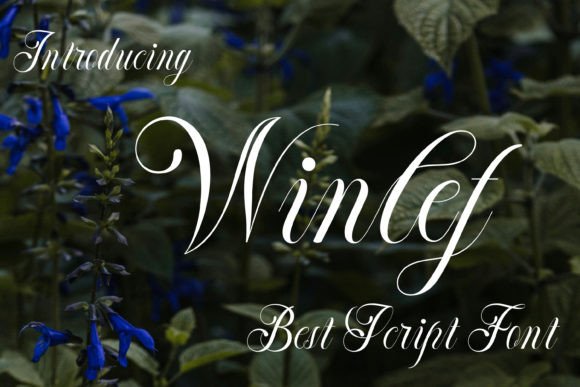
Winlef: A Script Font That Elevates Digital Branding
Recently, I was working on a boutique online store’s homepage redesign. The client wanted something that felt personal, elegant, and slightly artistic—something that would make their brand stand out in a crowded market. After testing several fonts, I came across Winlef. It immediately caught my eye because of its handwritten flow and italics style. It wasn’t just another script font; it had a unique personality that felt both modern and timeless.
The Visual Personality of Winlef
Winlef is a script amp typeface designed with a fluid, handwritten feel. Its italicized strokes give it a natural, organic rhythm that feels like a real person wrote it. Unlike some overly decorative script fonts, Winlef maintains clarity and legibility, making it ideal for digital use. The font has a soft, elegant curve to its characters, which gives it a refined yet approachable vibe. It’s perfect for projects that need a touch of creativity without sacrificing readability.
I used Winlef as the primary font for the hero section of the boutique site. The first-time render was stunning—it felt like the brand had a story to tell. The fluidity of the font complemented the brand’s aesthetic, which focused on handmade and artisanal products. It added warmth and character to the layout while keeping the design clean and professional.
Where to Use Winlef in Web Design
Winlef is incredibly versatile. It works well in a variety of digital contexts, including:
- Hero sections: As I did on the boutique site, it adds visual interest and draws attention to key messages.
- Landing pages: Great for headlines and call-to-action buttons, especially when paired with a simple sans serif body text.
- Online shop banners: It can be used to highlight product names or promotional offers with a stylish flair.
- Blog headers: Adds a creative edge to blog titles, especially for lifestyle or artsy content.
- Course sales pages: Makes course titles more engaging and visually appealing.
- Portfolio sites: Perfect for logo text or section headings to reflect a creative identity.
- Campaign landing pages: Enhances the emotional tone of marketing campaigns with its expressive style.
Its elegance makes it suitable for both editorial and commercial applications. Whether you’re designing a digital brand kit or a social media graphics set, Winlef can serve as a strong visual anchor.
Readability and Responsiveness
One of the most important factors when choosing a font is readability, especially on mobile devices. I tested Winlef on various screen sizes and found it performed exceptionally well. Even at smaller sizes, the font remained clear and easy to read. This is partly due to its balanced stroke weight and spacing, which helps maintain legibility across different platforms.
For responsive layouts, it’s crucial to consider how the font behaves on dark and light backgrounds. I noticed that Winlef looked particularly striking over image banners, where it could act as a decorative accent without overwhelming the design. However, it’s also effective on solid color backgrounds, especially when used in contrast with a neutral or muted palette.
When using Winlef for buttons or short phrases, I recommend pairing it with a simpler sans serif font for body copy. This creates a clear visual hierarchy and ensures that the message remains scannable. For example, on the boutique site, I used Winlef for the headline and a clean sans serif font for the product descriptions. The contrast helped guide the user’s eye through the content smoothly.
Font Pairing and Brand Identity
Winlef isn’t meant to be used alone. It works best when paired with complementary fonts that balance its decorative nature. A popular pairing is to use a serif font for body text and a sans serif font for headings. This combination provides a sense of structure and professionalism while still allowing the brand to express its creative side.
For a modern typography approach, I’ve seen designers pair Winlef with a geometric sans serif for a contemporary look. Alternatively, using a classic serif font can give the design a more editorial feel, which is great for blogs or content-heavy websites.
Final Thoughts on Winlef
Winlef is more than just a script font—it’s a tool that can elevate your web design and reinforce your brand’s identity. Its elegant, handwritten style brings a human touch to digital content, making it feel more authentic and engaging. Whether you’re building a creative portfolio, a coaching website, or a product landing page, Winlef can help you create a more polished and memorable user experience.
By understanding how to use Winlef effectively, you can enhance readability, improve visual hierarchy, and build a stronger connection with your audience. It’s a font that deserves a place in every designer’s toolkit, especially those who value both aesthetics and functionality in their work.